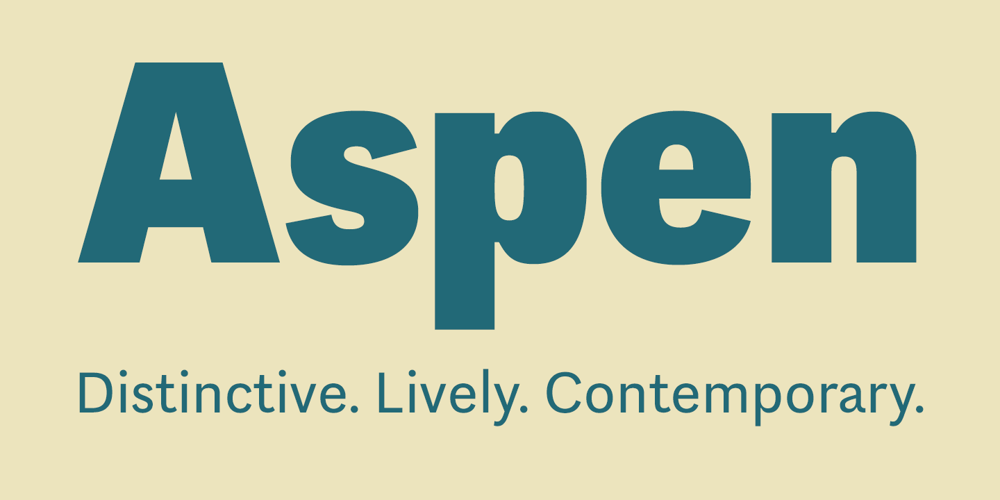
Aspen Font Family was designed by Ludwig Übele and published by Ludwig Type. Aspen contains 18 styles and family package options. Aspen is a refreshing and resilient typeface for text of any kind. Functional but not faceless, Aspen derives a very distinctive character from an unusual pedigree. It is loosely influenced by early American and European grotesques, but with more warmth and improved legibility. And where these historical models were rigid and bulky, Aspen’s curves have a gentle sway that makes for very comfortable reading. Relatively generous ascenders and descenders allow the typeface to feel spacious even when set with tight leading. These amiable qualities are matched with a lively italic based on cursive writing. The family consists of nine weights, and is intended for both text and display usage. Visit this minisite to see Aspen in action.